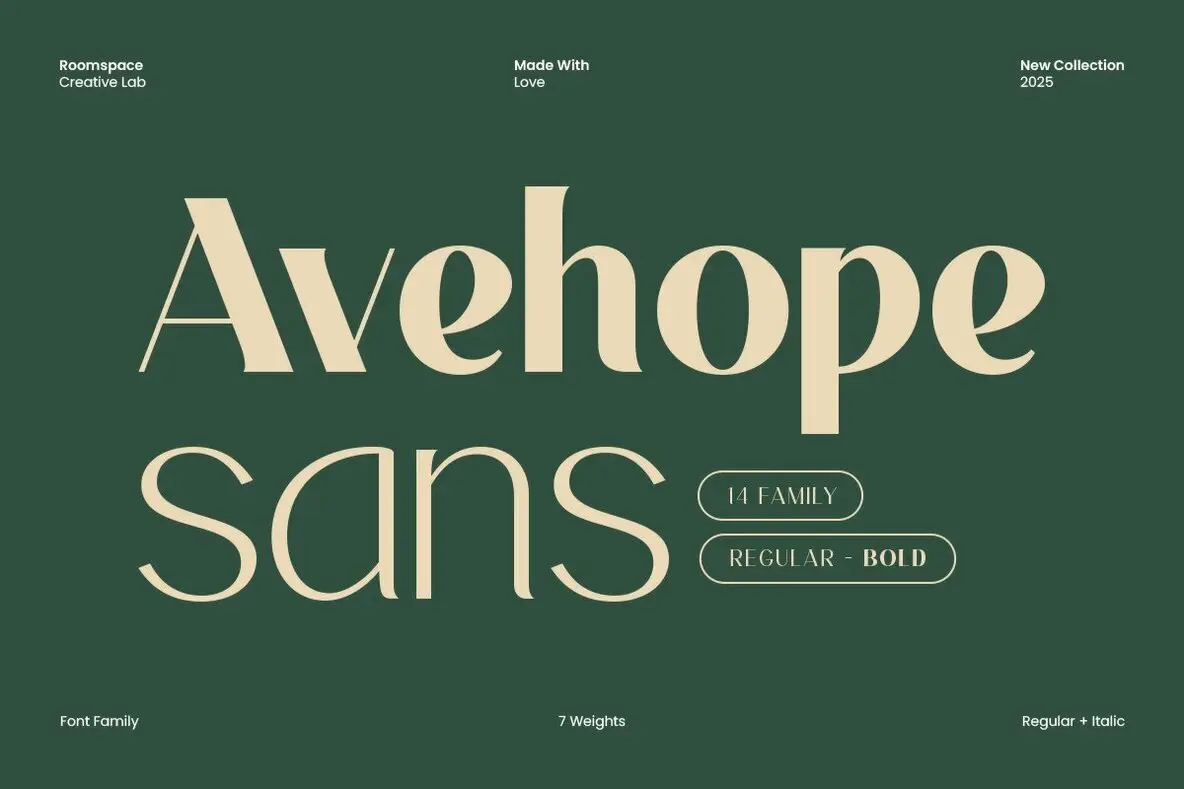
Avehope Font
In the world of typography, finding a font that marries precision with aesthetic integrity is crucial. Avehope Sans, a modern geometric sans-serif typeface, offers 14 fonts encapsulating 7 distinct weights alongside matching italics. Its architectural structure and balanced design make it an impeccable choice for branding, editorial, and UI projects. Whether in print or digital media, Avehope Sans stands out with its elegant readability.Avehope Sans: Geometric Clarity in 14 Styles